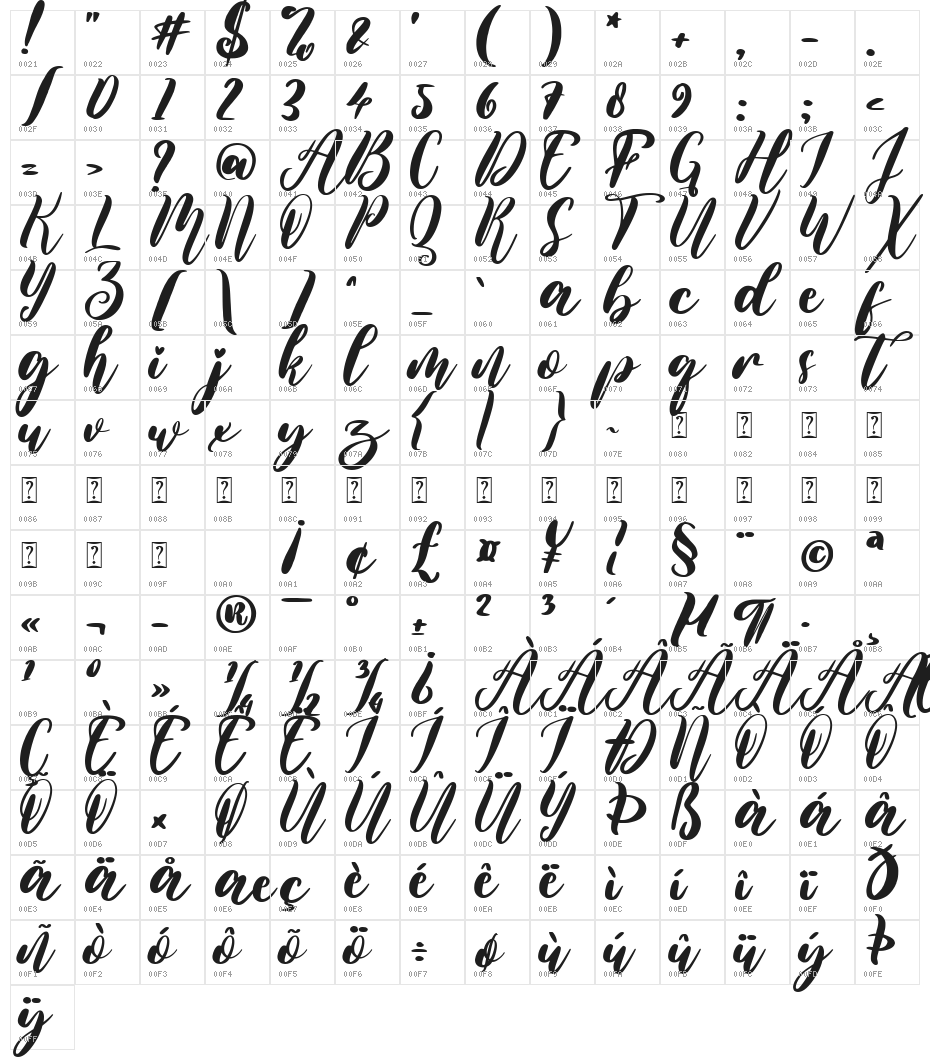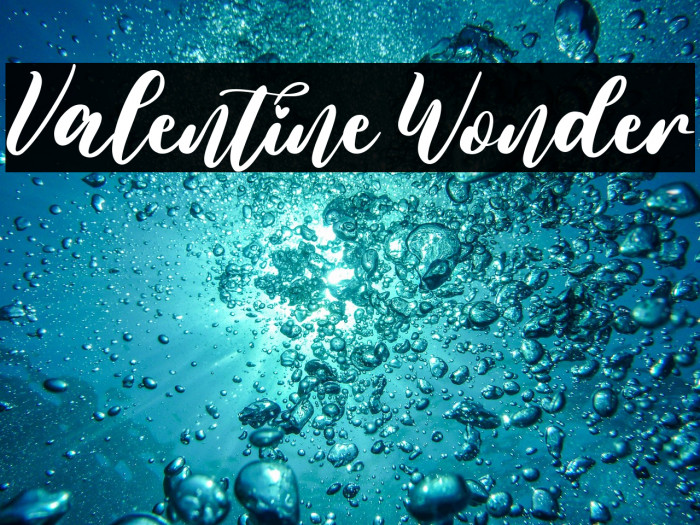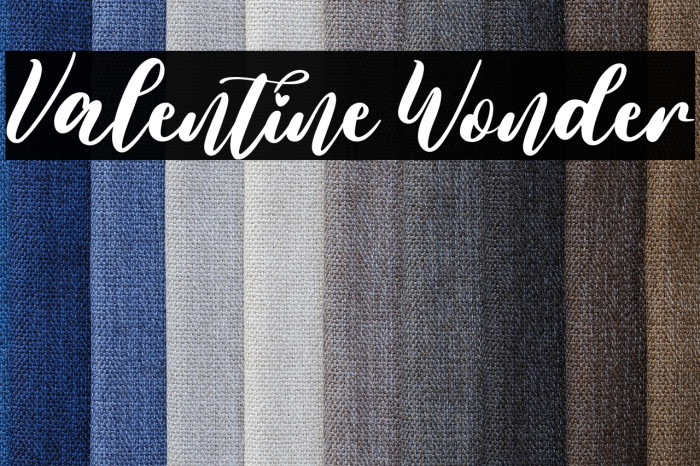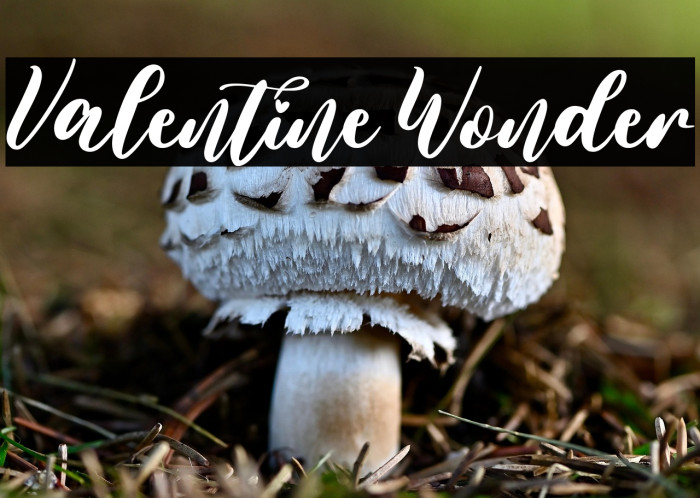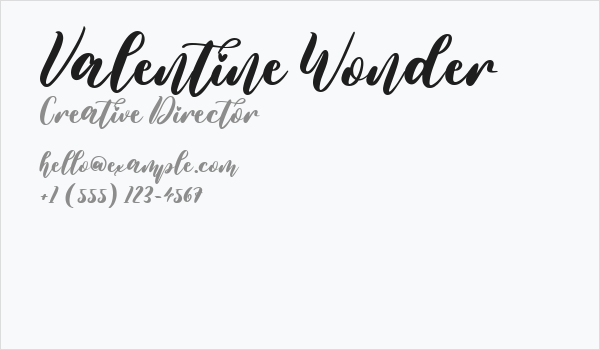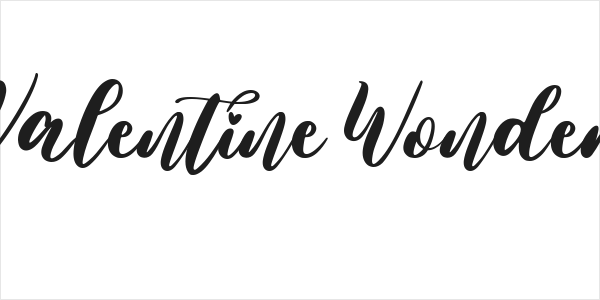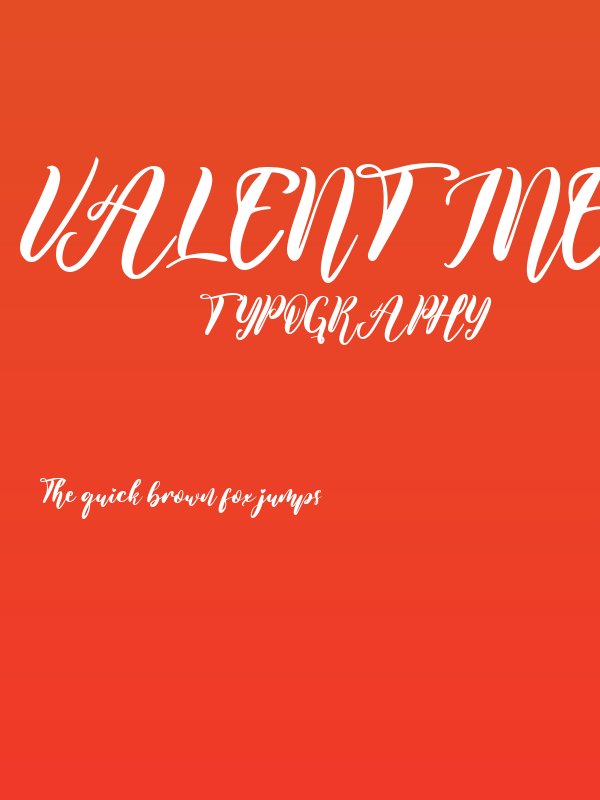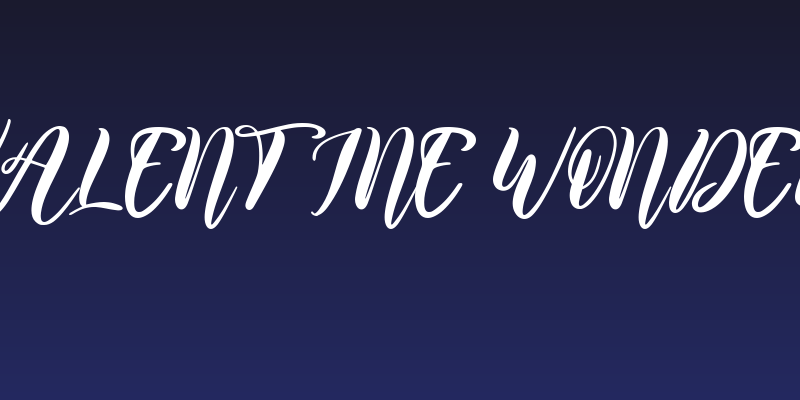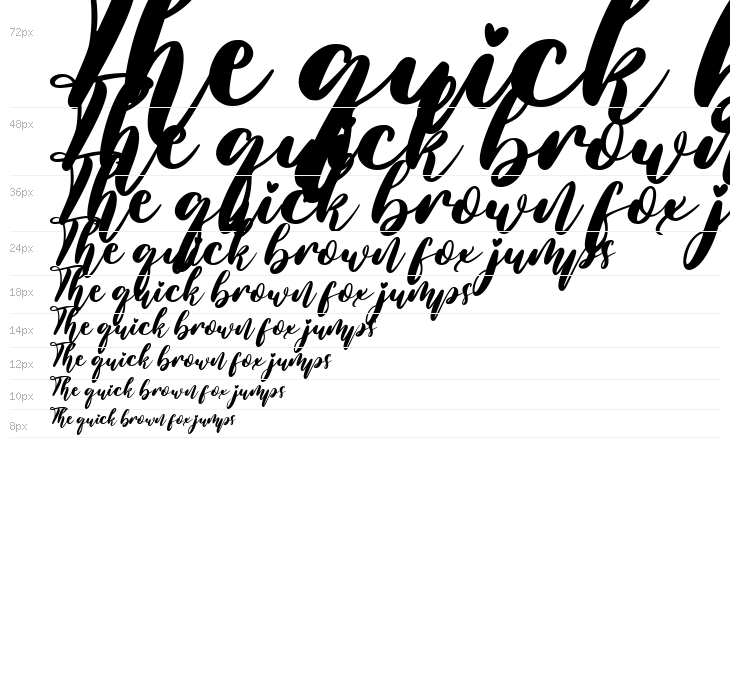
Valentine Wonder Font
Valentine Wonder Description
This font exudes a romantic and whimsical charm, characterized by its flowing, cursive style. The letters are elegantly connected, with graceful loops and flourishes that add a sense of movement and fluidity. The uppercase letters are bold and expressive, while the lowercase letters maintain a consistent rhythm, enhancing readability. The numbers and special characters are crafted with the same attention to detail, ensuring a cohesive look across all elements. This font's playful yet sophisticated design makes it ideal for projects that require a touch of elegance and creativity.
| Proposed Projects | Ideal for wedding invitations, greeting cards, branding, and romantic-themed designs. |